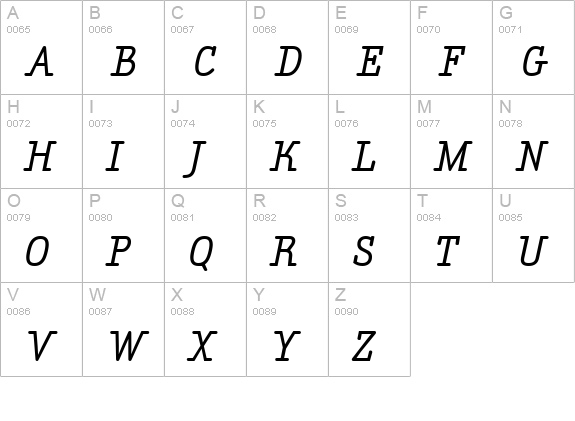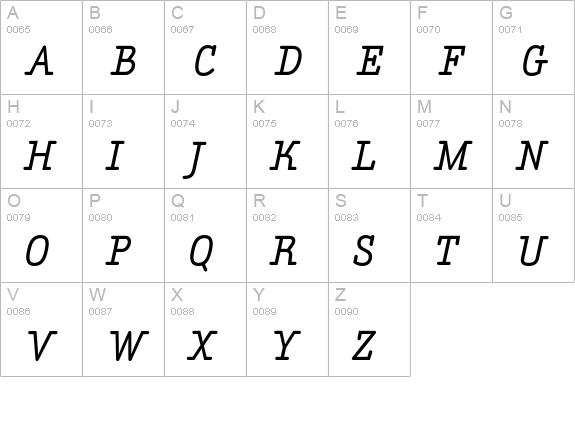
AmintaMediumItalic Font Details
Discover the elegance and sophistication of Aminta Medium Italic font, a versatile typeface that adds a touch of modernity to any design project. The medium weight and italic styling create a perfect balance between professionalism and creativity, making it ideal for a wide range of applications, from branding to editorial design. This font features graceful curves and subtle slants that exude a sense of sophistication and refinement. Its medium weight strikes the perfect balance between readability and impact, making it suitable for headlines, subheadings, and body text alike. Whether you're designing a website, creating a poster, or crafting a logo, Aminta Medium Italic font is sure to elevate your project to the next level. Best of all, this premium font is available for free download at FontsMarket.com, allowing you to access this high-quality typeface without any cost. Don't miss out on the opportunity to enhance your designs with the timeless elegance of Aminta Medium Italic font. Download it today and see the difference it can make in your creative projects.